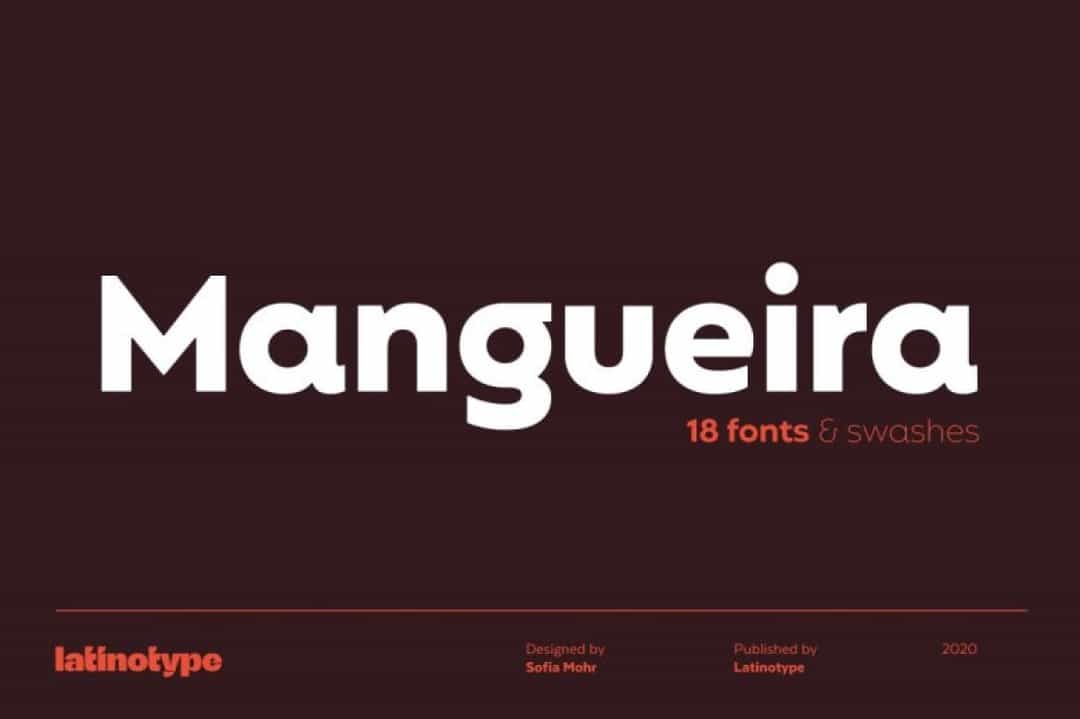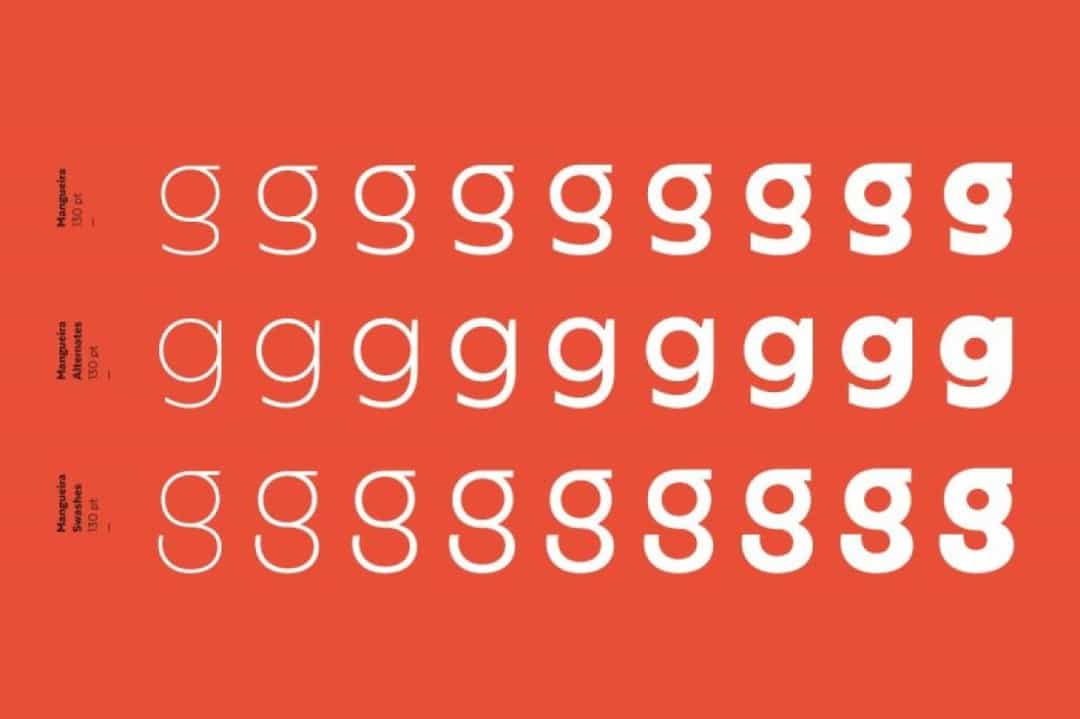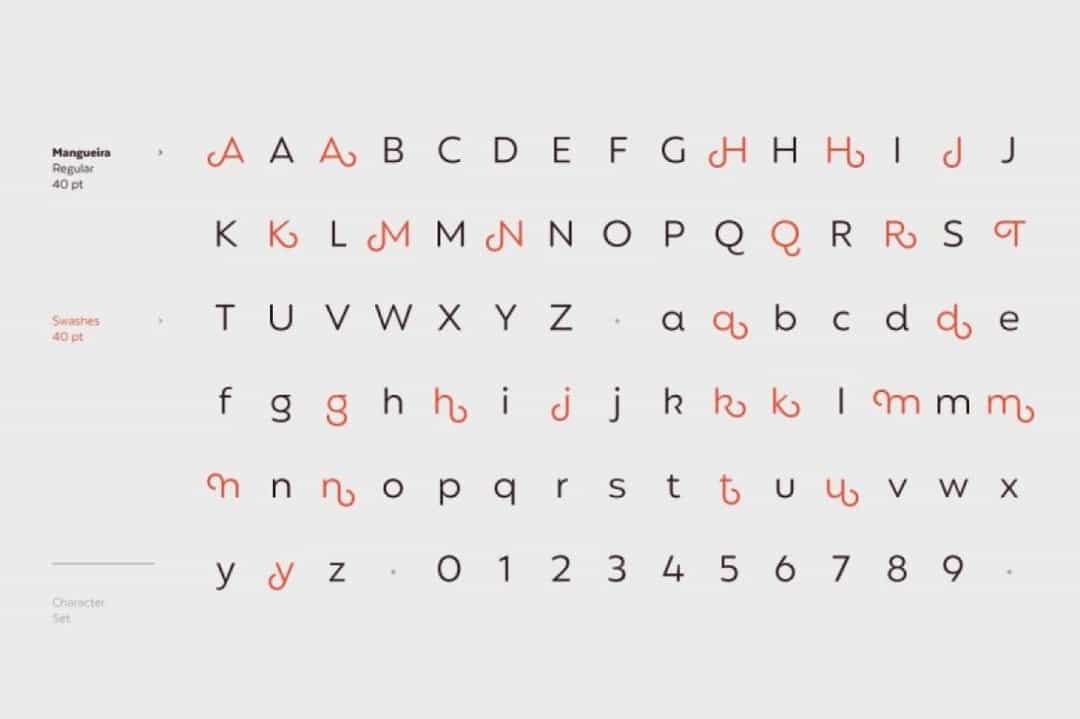
Mangueira Font is an elegant geometric sans-serif typeface composed of two subfamilies: One standard and modern-looking family that’s ideal for display; and an alternative one which works better on text paragraphs and neutral titles. Each subfamily comes equipped with 9 weights to choose from as well as swashes that can quickly be accessed with OpenType menu.